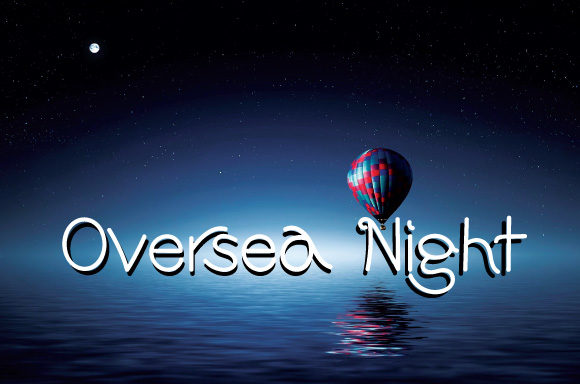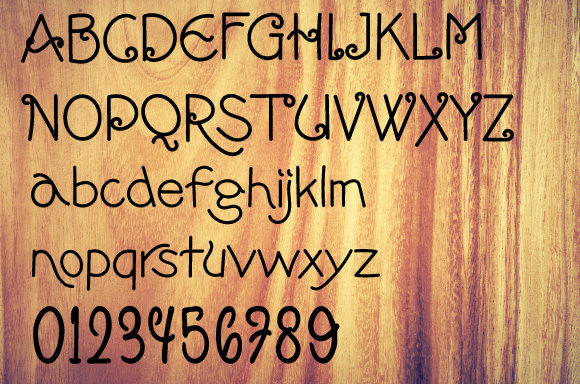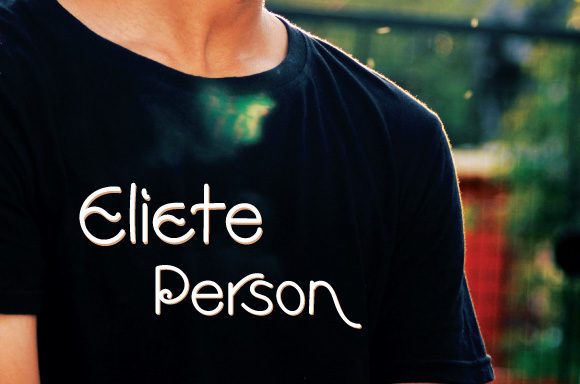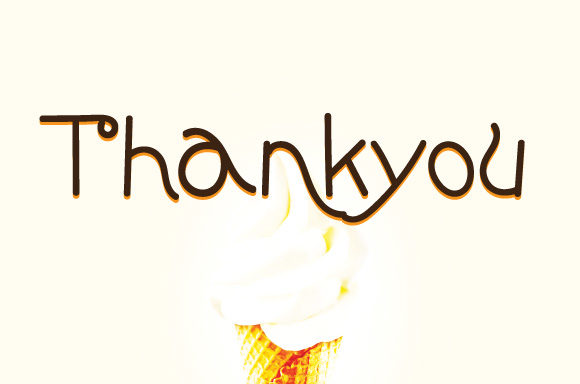
The Designer’s Delight: Elevating Creativity with Eliete Font
A Personal Review: What I Love About Eliete Font
Eliete Font has been a revelation for my design projects. Here’s what I love about it:
- ✨ Unique blend of flowing lines and whimsical curls that add a touch of sophistication to any design
- ✅ Highly versatile and suitable for a wide range of projects, from branding and headings to wedding designs, invitations, signatures, logos, labels, and more
- ✅ Easy to read and understand, even in smaller font sizes
- ✨ Beautifully crafted to evoke a sense of elegance and whimsy
While Eliete Font is an excellent choice for many design projects, there are a few minor quirks to be aware of:
- ⚠️ Some users have reported issues with kerning, particularly when using the font in larger sizes. However, this can be easily adjusted in most design software.
- 🤔 The font’s unique features, such as the flowing lines and curls, may not be suitable for very formal or traditional designs.
The Designer Inspiration Behind Eliete Font
Eliete Font was designed with the intention of creating a unique and versatile typeface that would inspire creativity and elevate design projects. The font’s creator drew inspiration from traditional typography, combined with modern elements and a touch of whimsy.
| What type of designs is Eliete Font best suited for? | Eliete Font is highly versatile and can be used for a wide range of designs, including branding, headings, wedding designs, invitations, signatures, logos, labels, and more. |
| Is Eliete Font easy to read? | Yes, Eliete Font is designed to be easy to read and understand, even in smaller font sizes. |